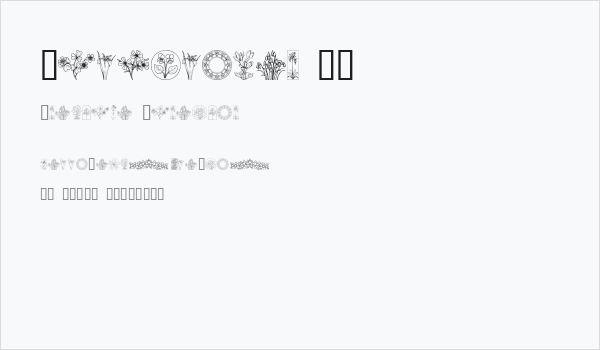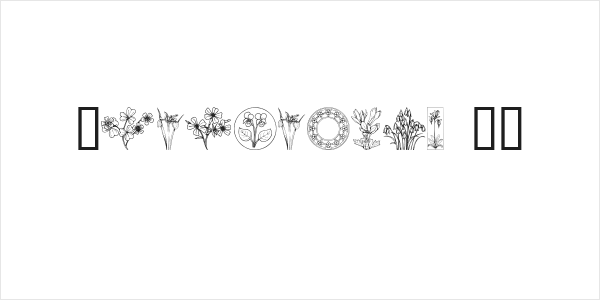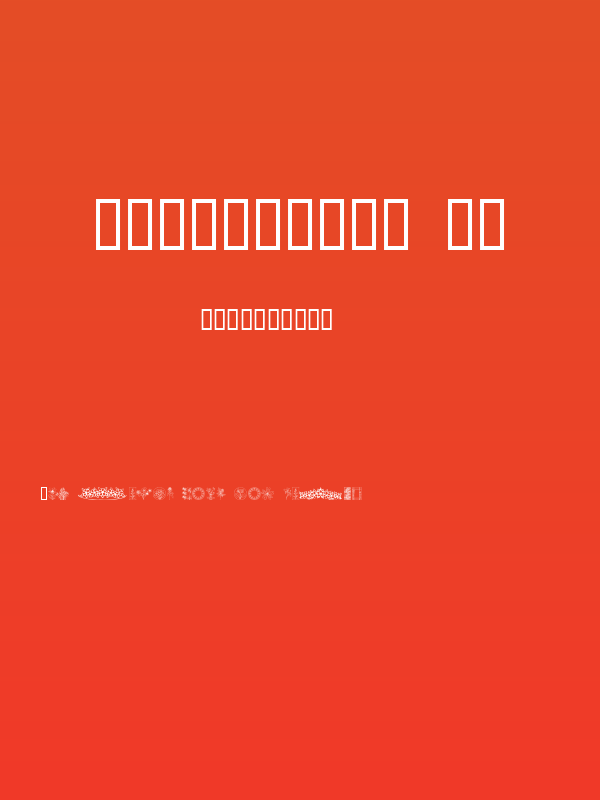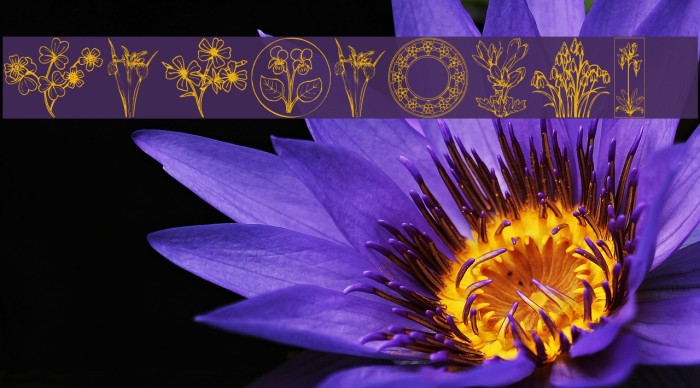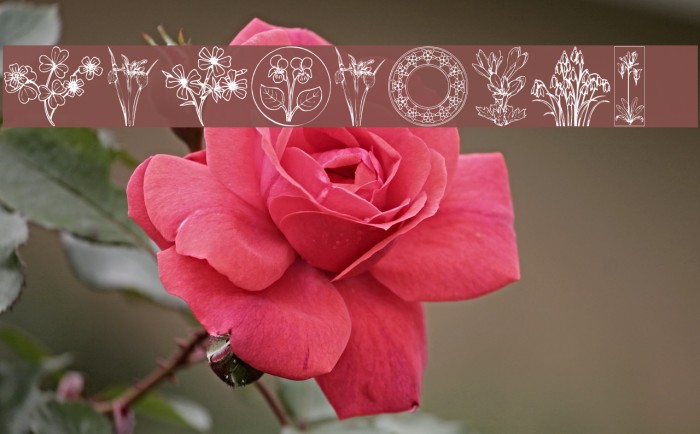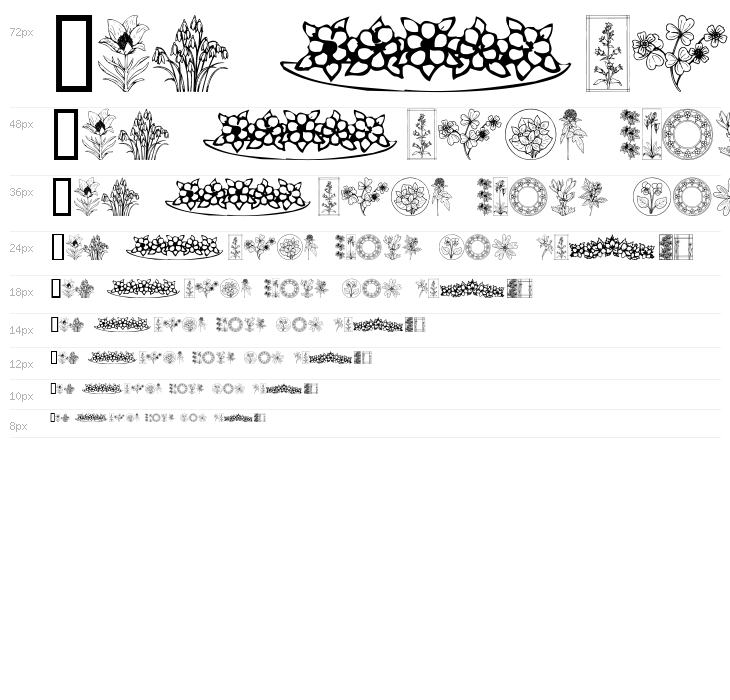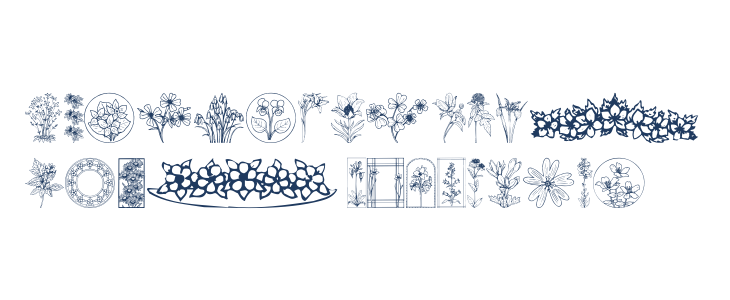
Wildflower II Font
Wildflower II Description
A decorative dingbat set featuring detailed black and white illustrations of wildflowers, floral arrangements, and botanical motifs, with each character representing a unique floral design rather than traditional alphanumeric glyphs.
| Overall Style | Decorative, Botanical, Hand-drawn |
| Use Case | Decorative elements, embellishments, icons, and borders. |
| Proposed Projects | Invitations, greeting cards, scrapbooking, botanical-themed branding, decorative borders, and craft projects. |